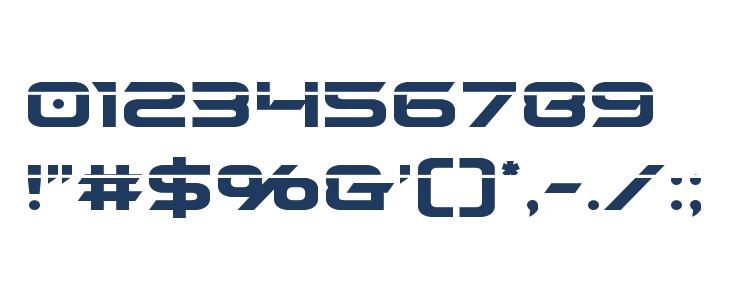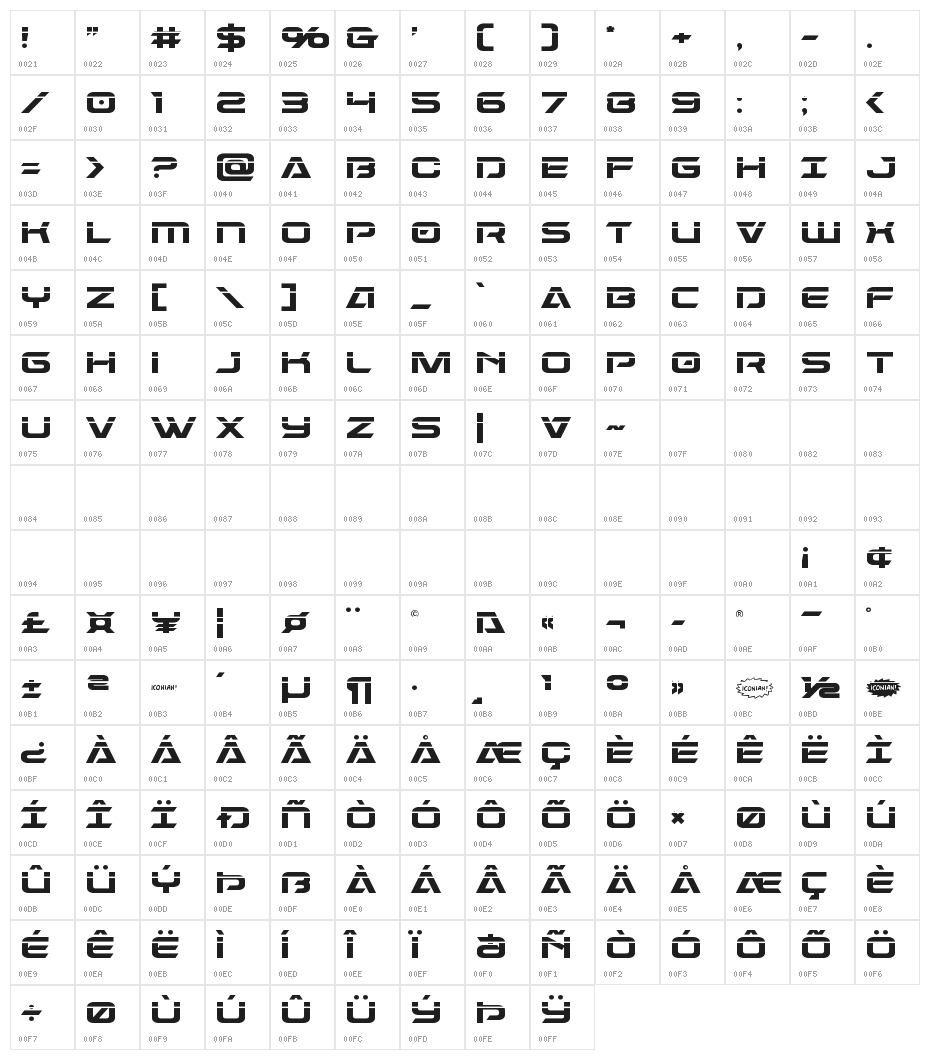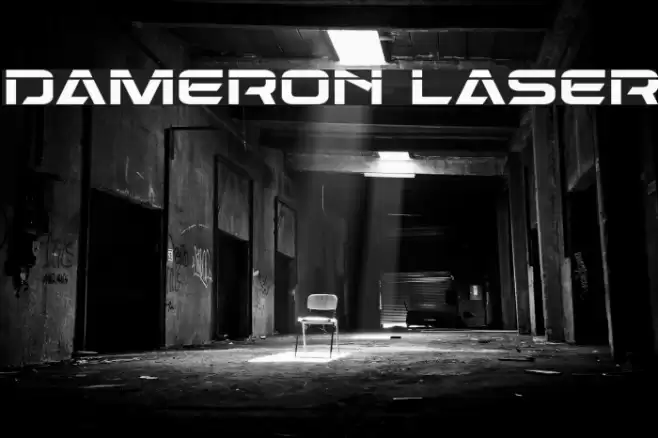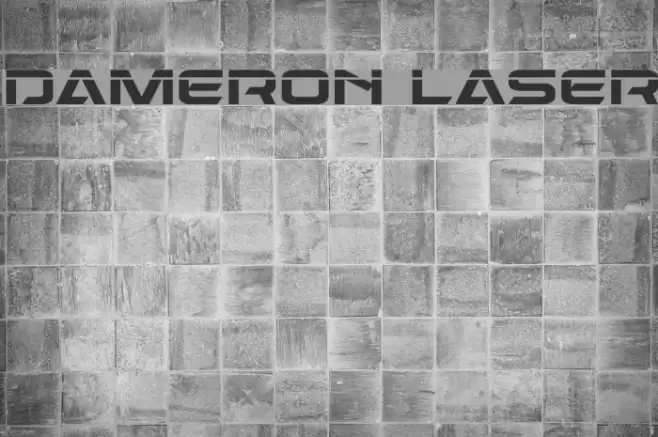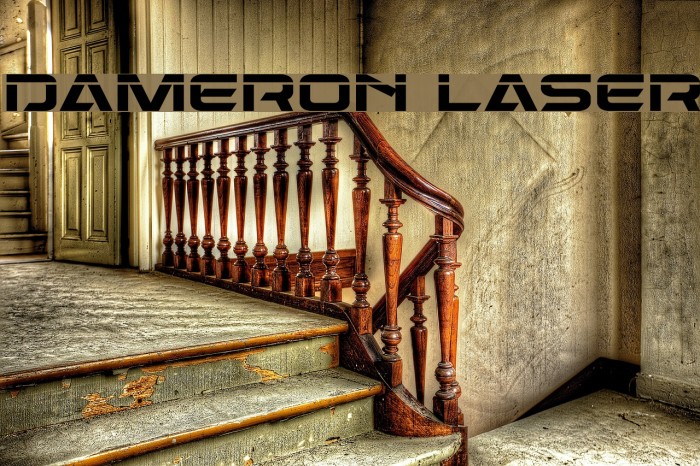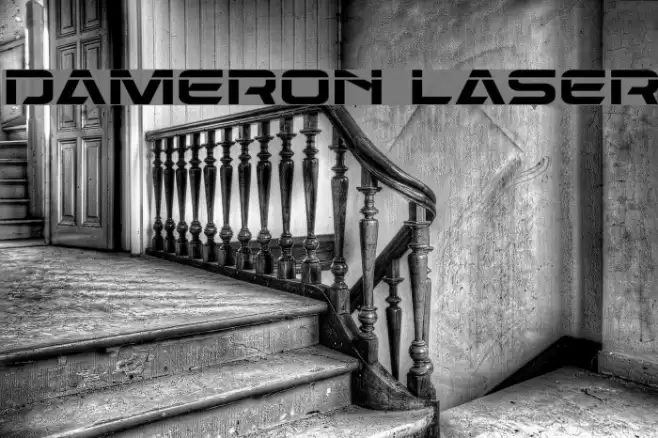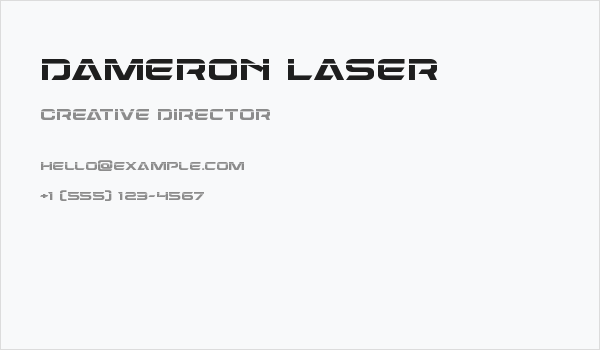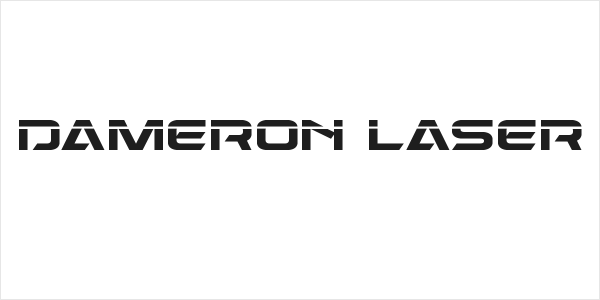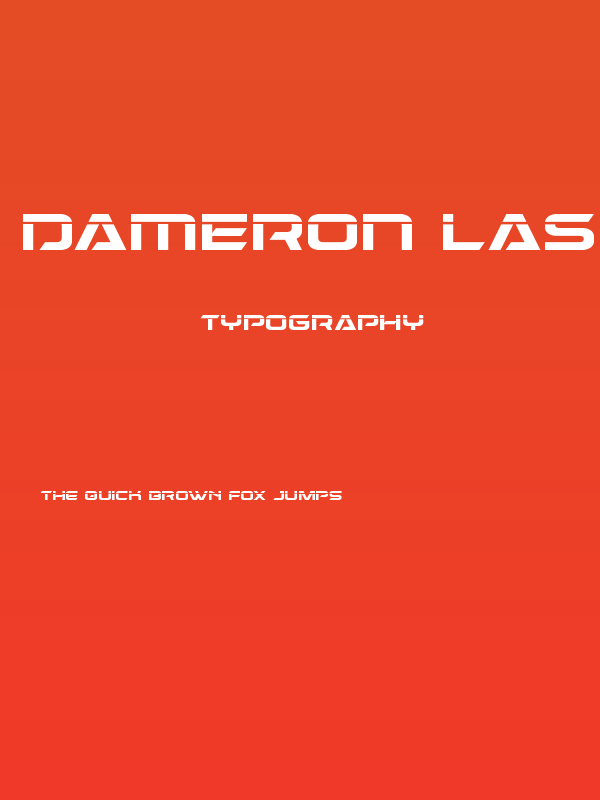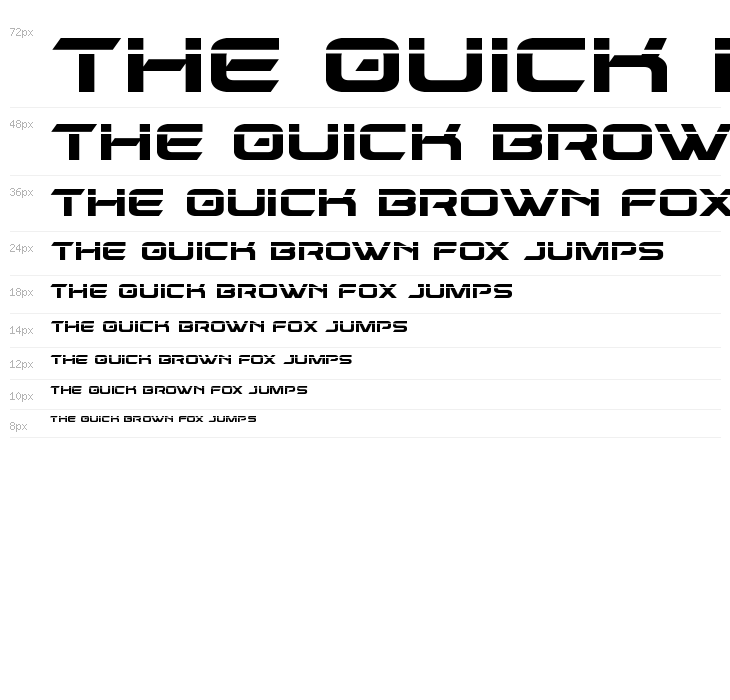
Dameron Laser Font
Dameron Laser Description
This font features a futuristic and geometric design, characterized by sharp angles and a bold presence. The uppercase letters are crafted with precision, incorporating cut-out sections that give a sense of movement and modernity. The lowercase letters maintain the same angular style, ensuring consistency throughout. Numbers and special characters follow the same design principles, making this font suitable for digital and tech-themed projects. The overall appearance is sleek and dynamic, ideal for capturing attention in a variety of settings.
| Proposed Projects | Ideal for tech branding, sci-fi posters, video game titles, and digital interfaces. |